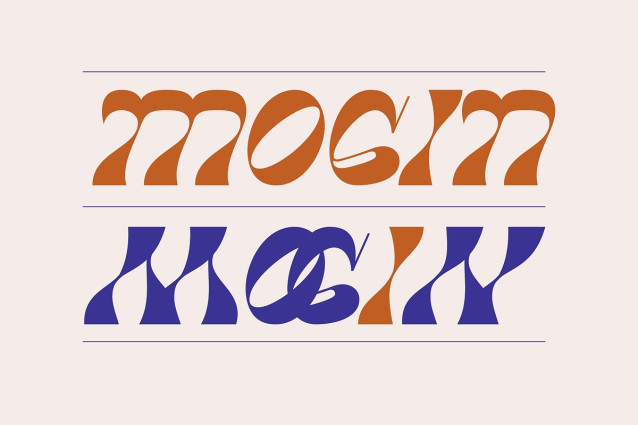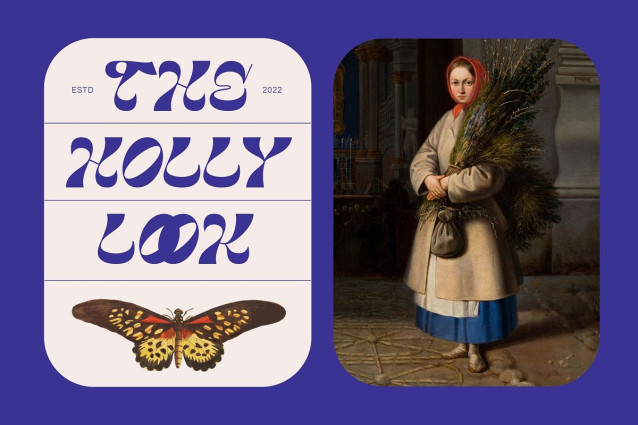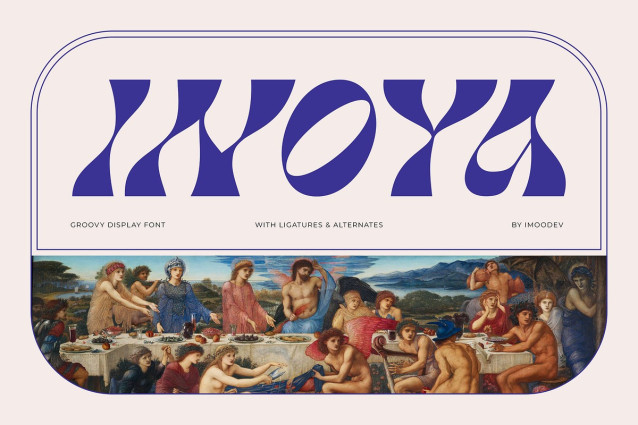
Inoya Display Font
Inoya Display Font a retro groovy display font that blends 70s psychedelic flair with modern geometric twists. Each letterform is a playful dance of curves and sharp angles, creating a unique silhouette that is both nostalgic and contemporary. With ligatures and alternates for added versatility, Inoya is perfect for crafting eye catching headlines, vintage posters, album covers, fashion branding, and editorial layouts